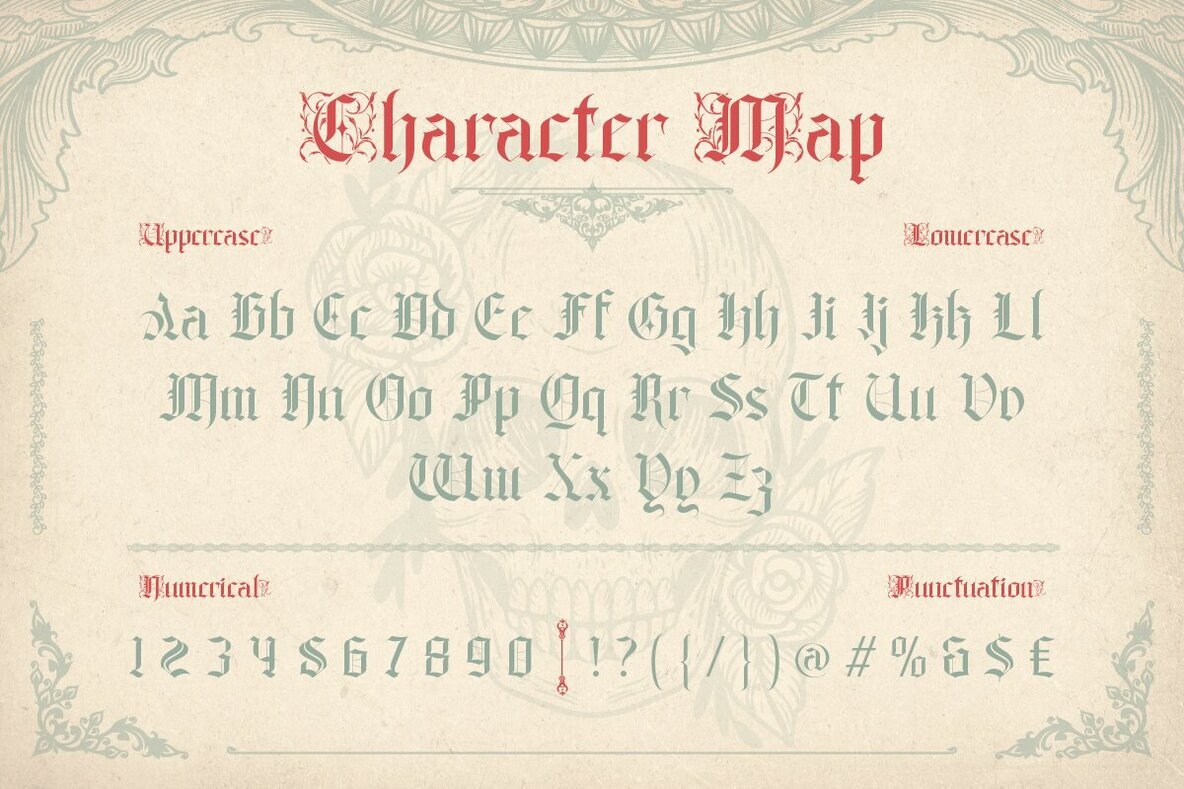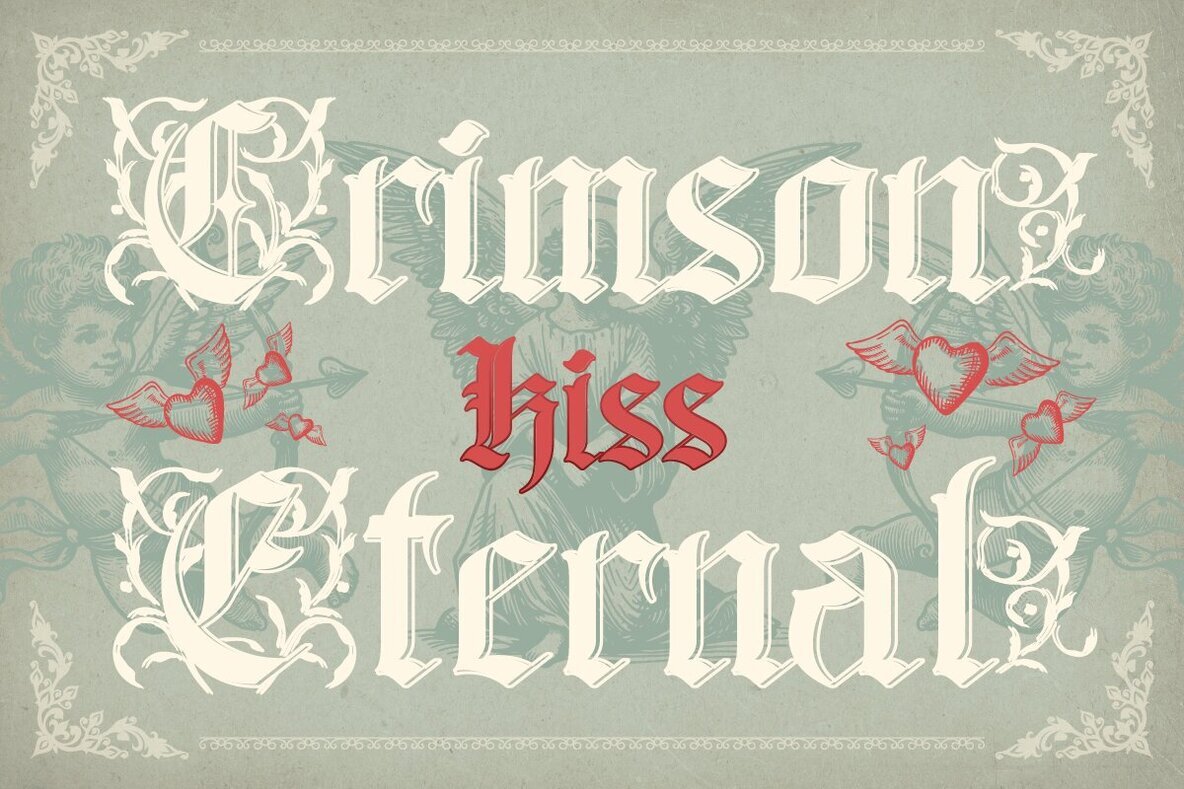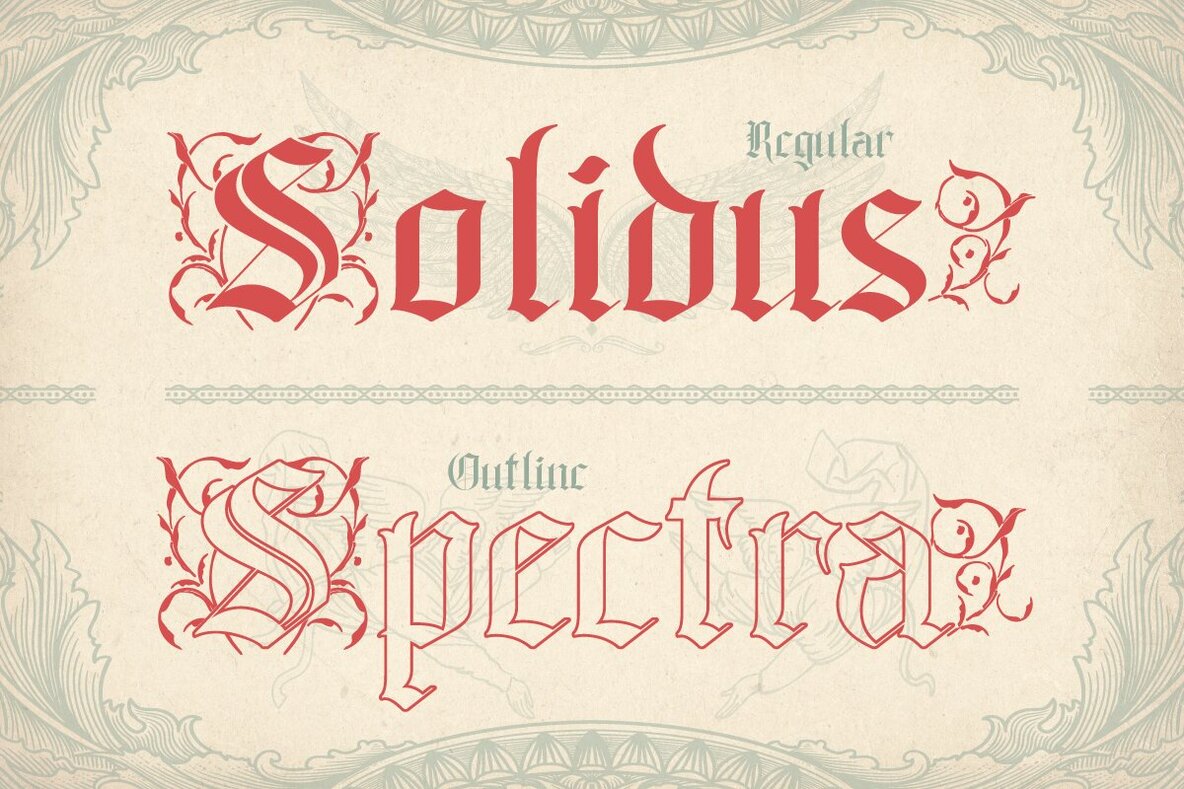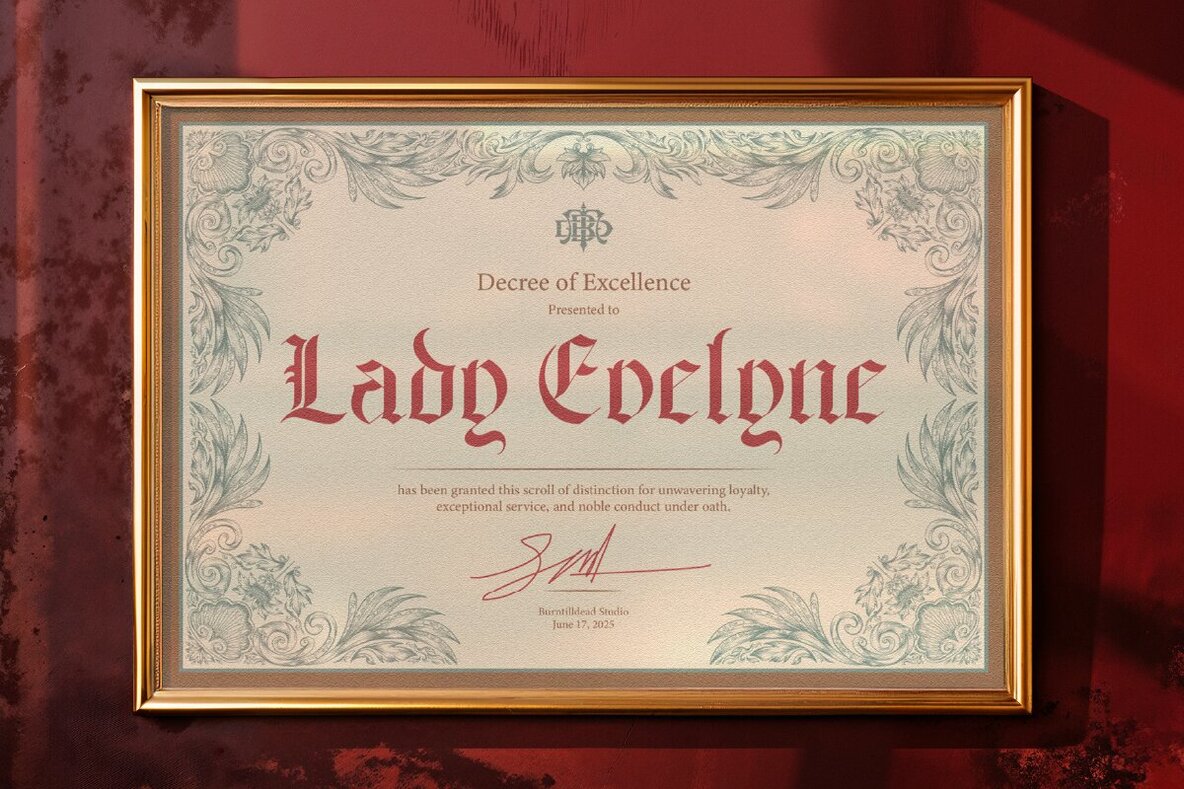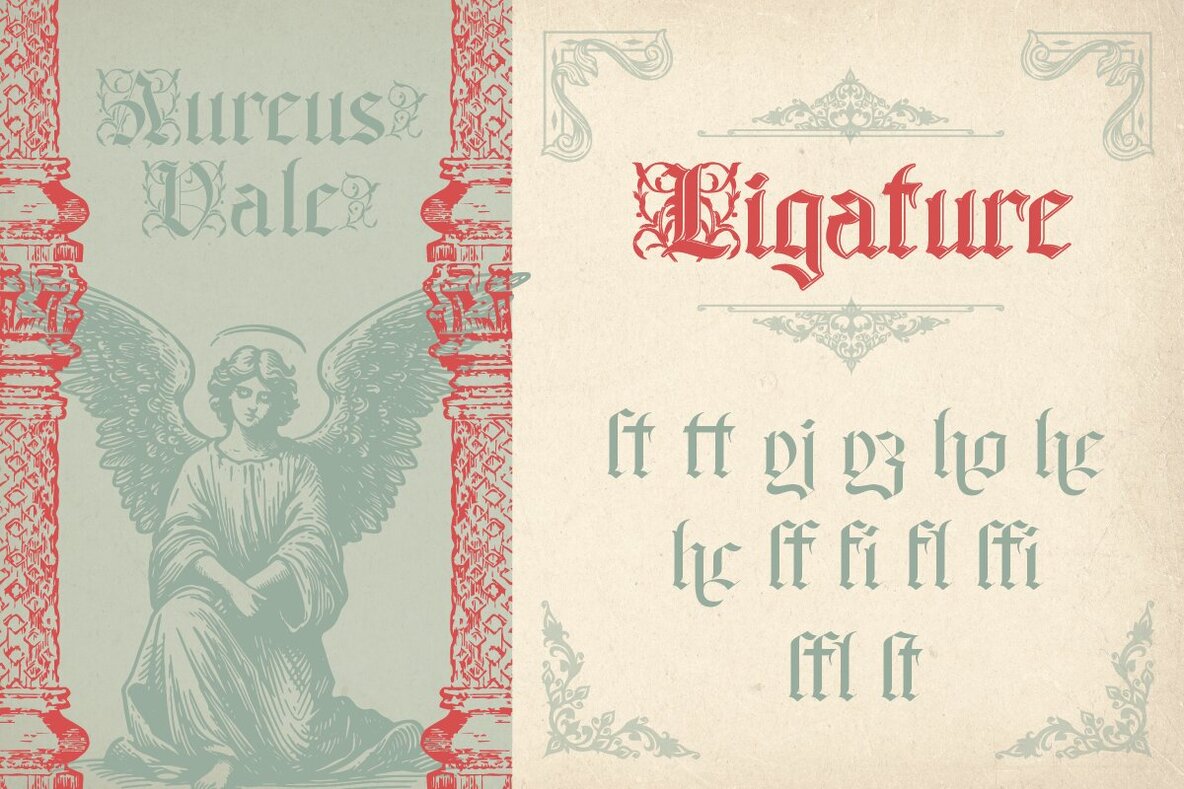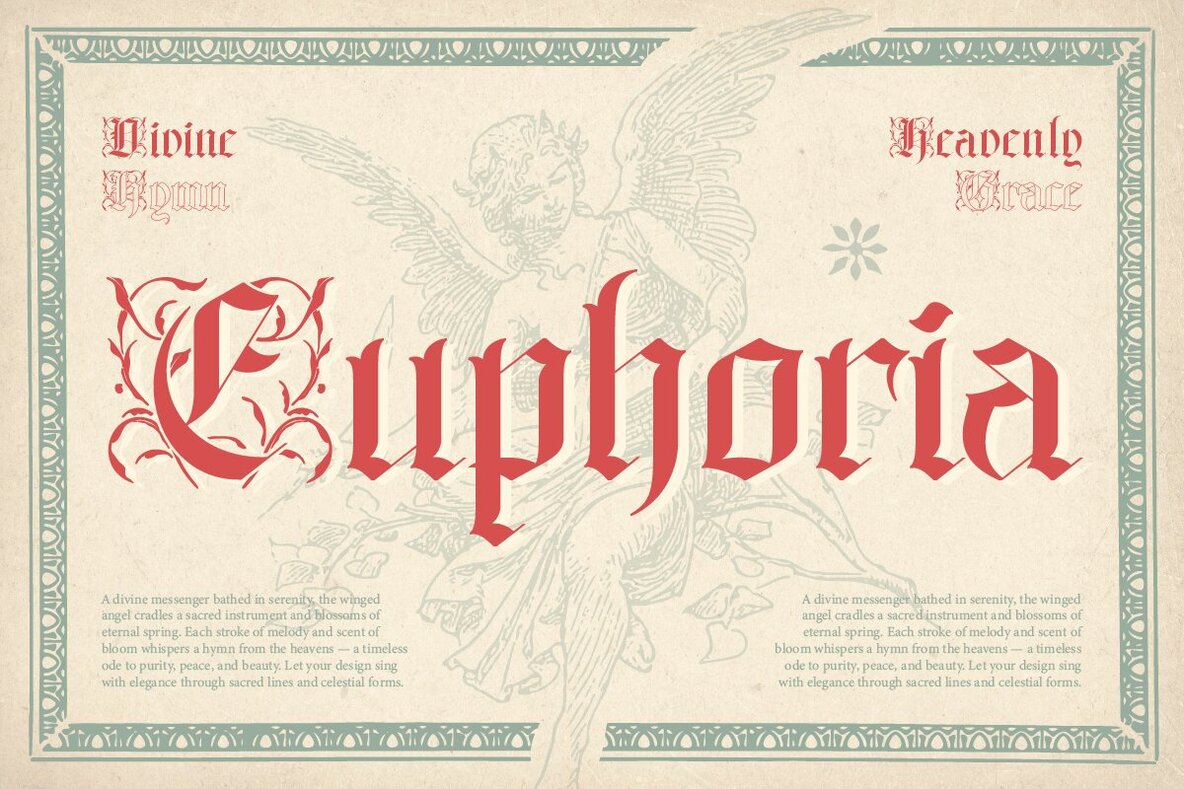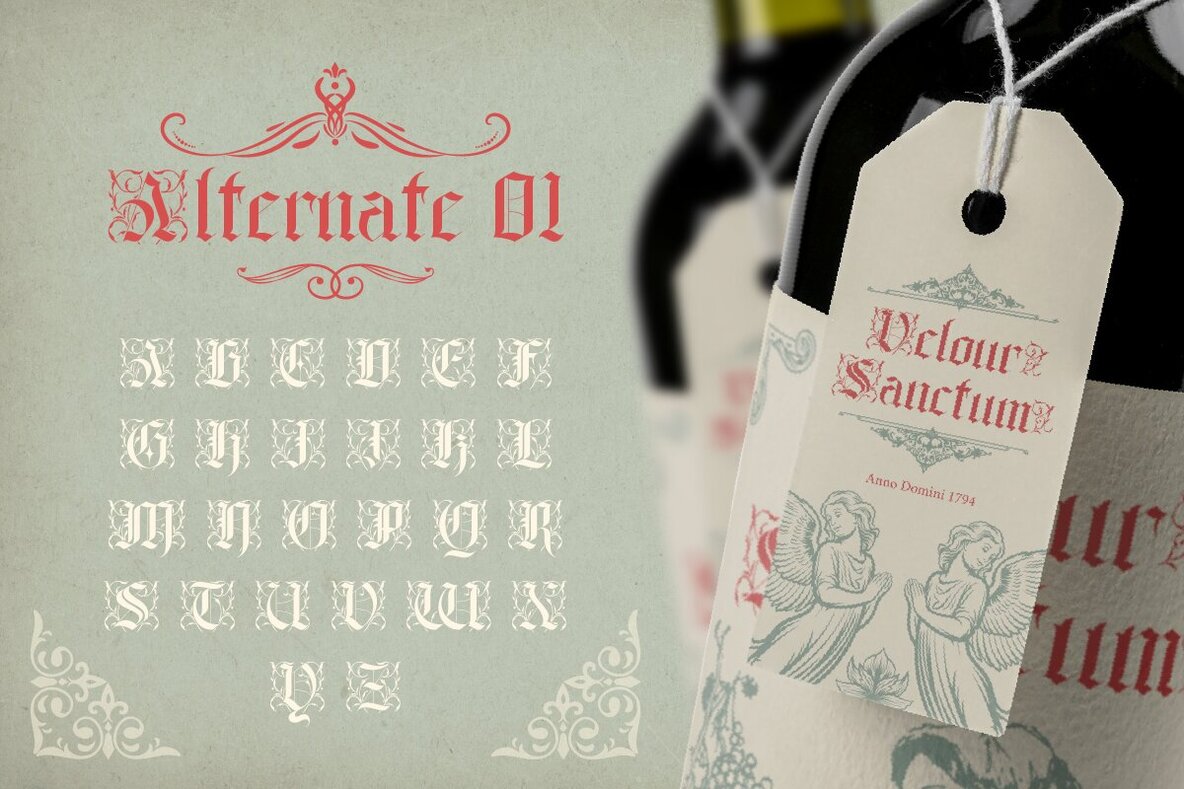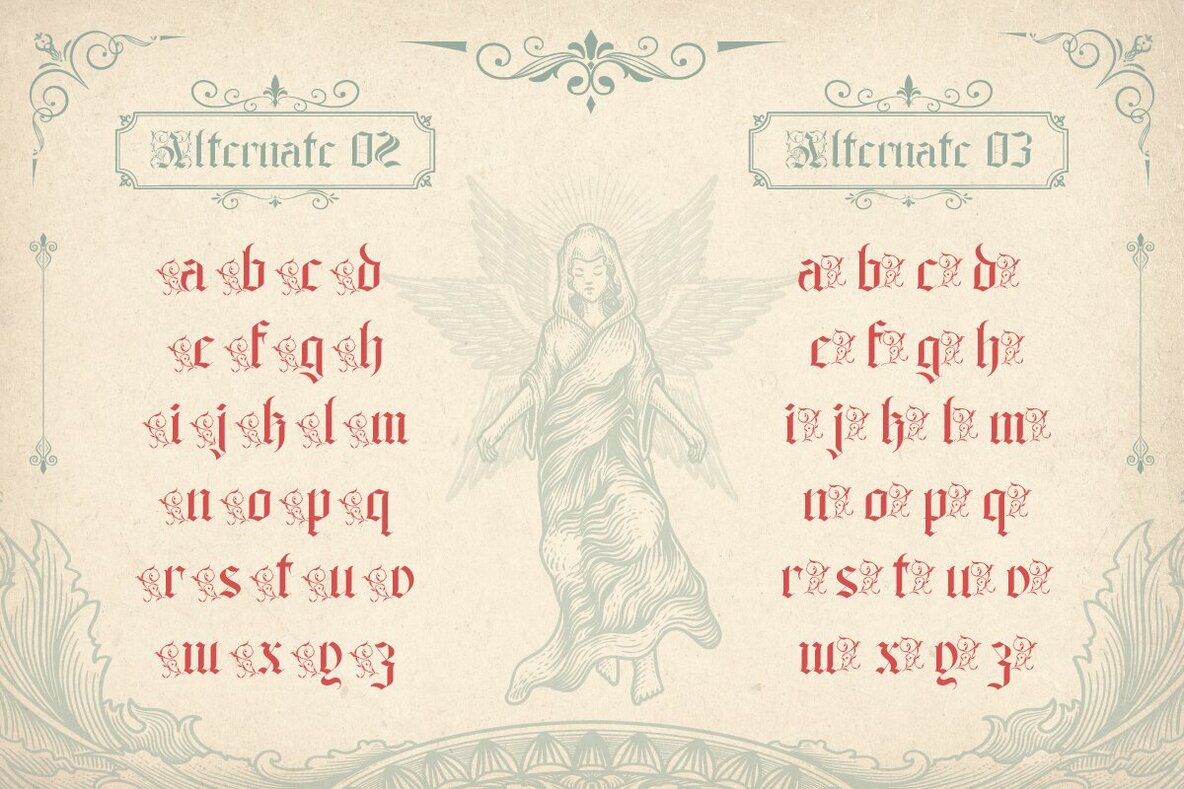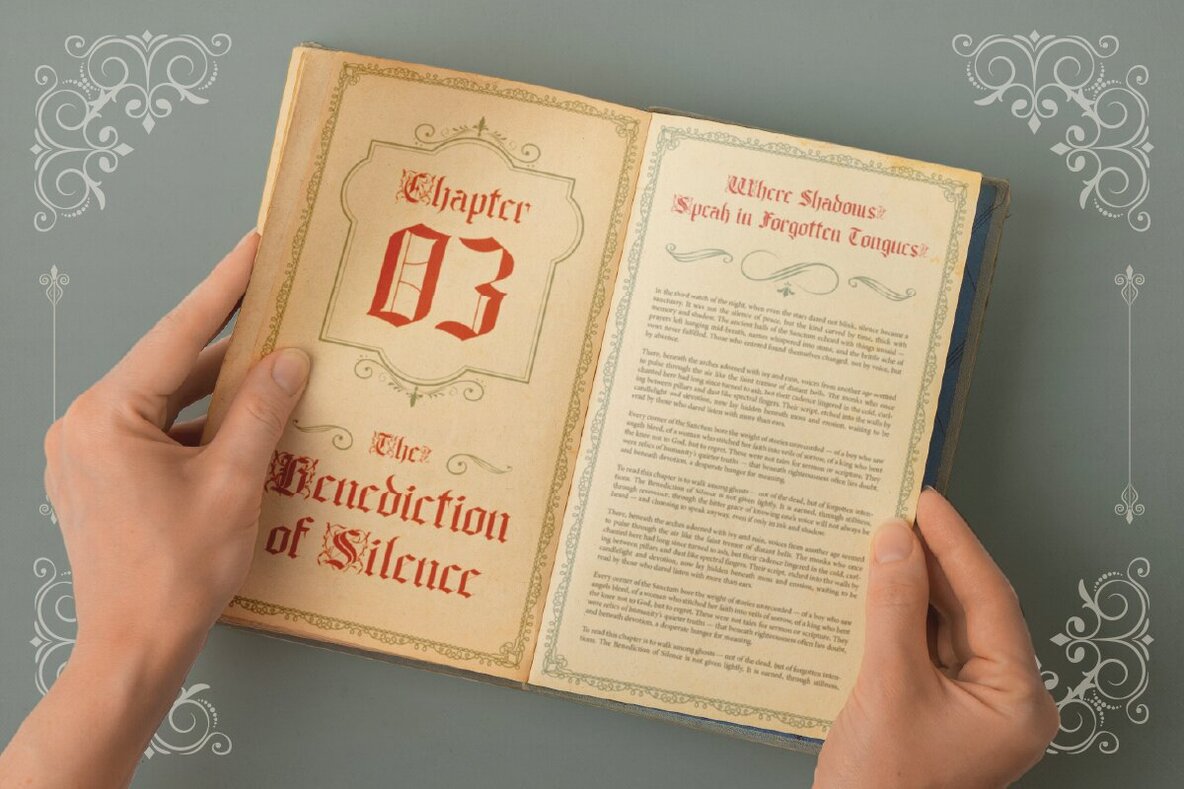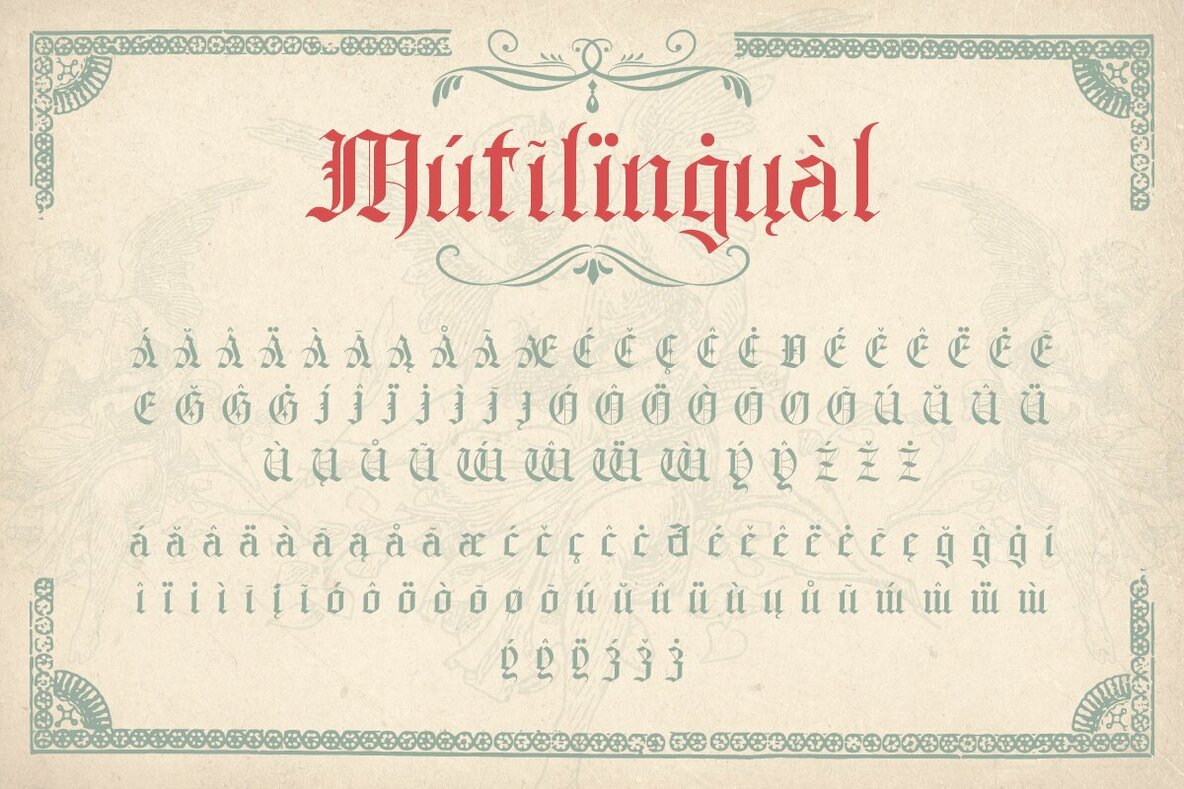
Aghony Font
Aghony Regular
Aghony Outline
The Aghony font offers an evocative plunge into the past, seamlessly blending medieval charm with contemporary elegance. Its decorative details on each letter evoke a sense of dark sophistication, perfect for those seeking a bold aesthetic reminiscent of Gothic architecture. Aghony is available in two distinct styles: Regular and Outline. The Outline variant provides a lighter feel, while maintaining its commanding visual impact, especially suited for striking posters or prominent header designs. This typeface is an exceptional choice for a multitude of themes, from medieval and gothic to tattoo-inspired art, metal or hardcore album designs, vintage posters, and occult motifs.Aghony: Ornamental Blackletter With a Modern Twist